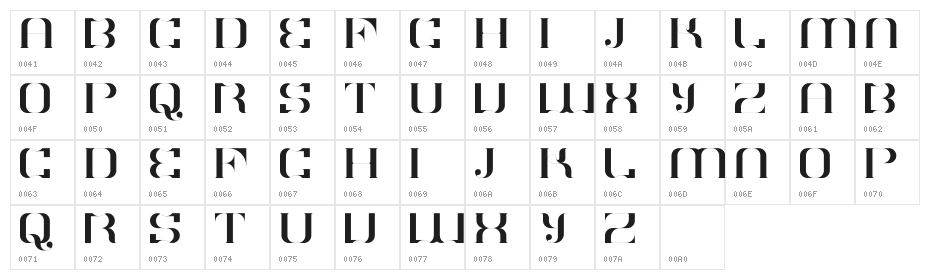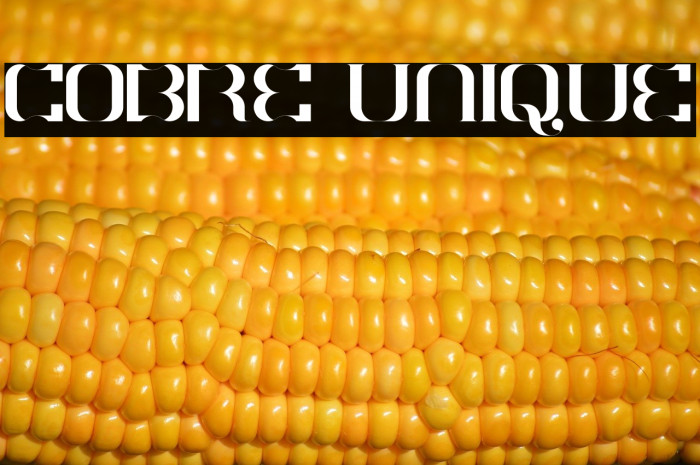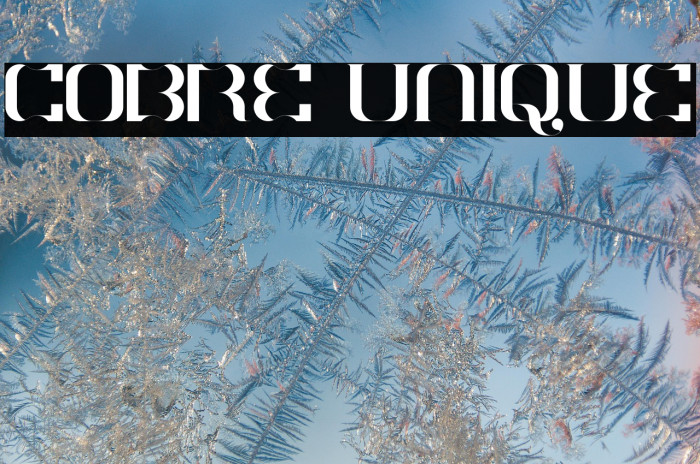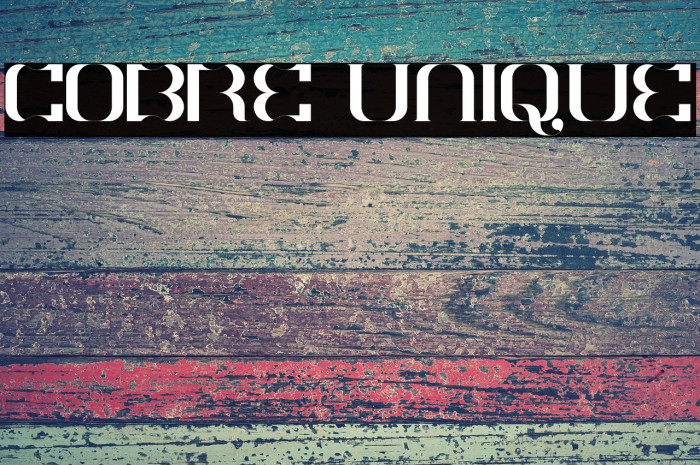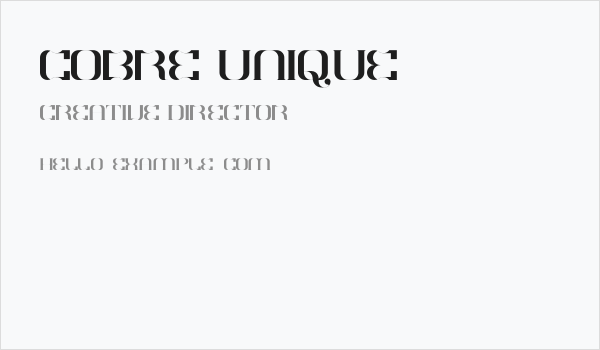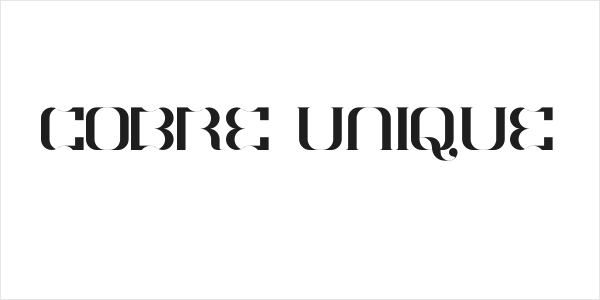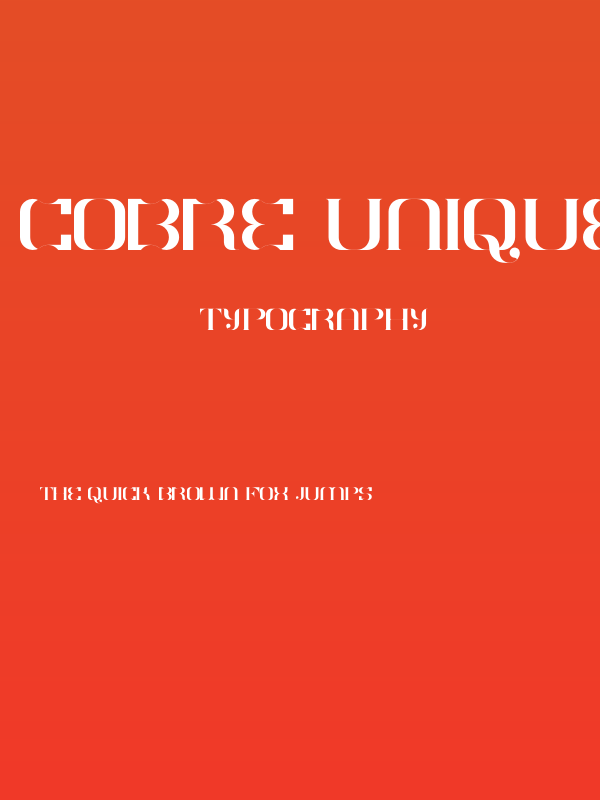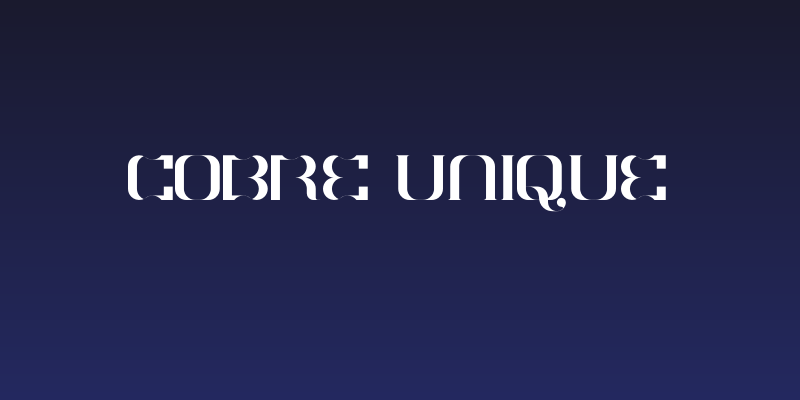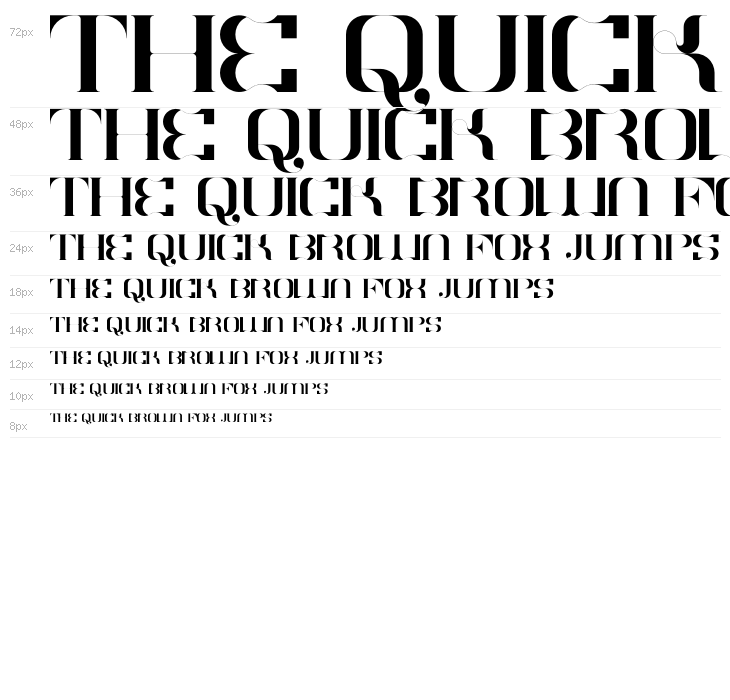
COBRE UNIQUE Font
COBRE UNIQUE Description
This font features a unique and modern design with a high contrast between thick and thin strokes. The characters are crafted with a decorative flair, incorporating sharp angles and smooth curves that create an eye-catching appearance. The uppercase letters are particularly striking, with a geometric influence that adds a sense of sophistication and style. The lowercase letters maintain the same aesthetic, ensuring consistency throughout the typeface. This font is ideal for making bold statements and capturing attention with its artistic and contemporary look.
| Proposed Projects | Perfect for branding, logos, headlines, and editorial design where a modern and artistic touch is desired. |